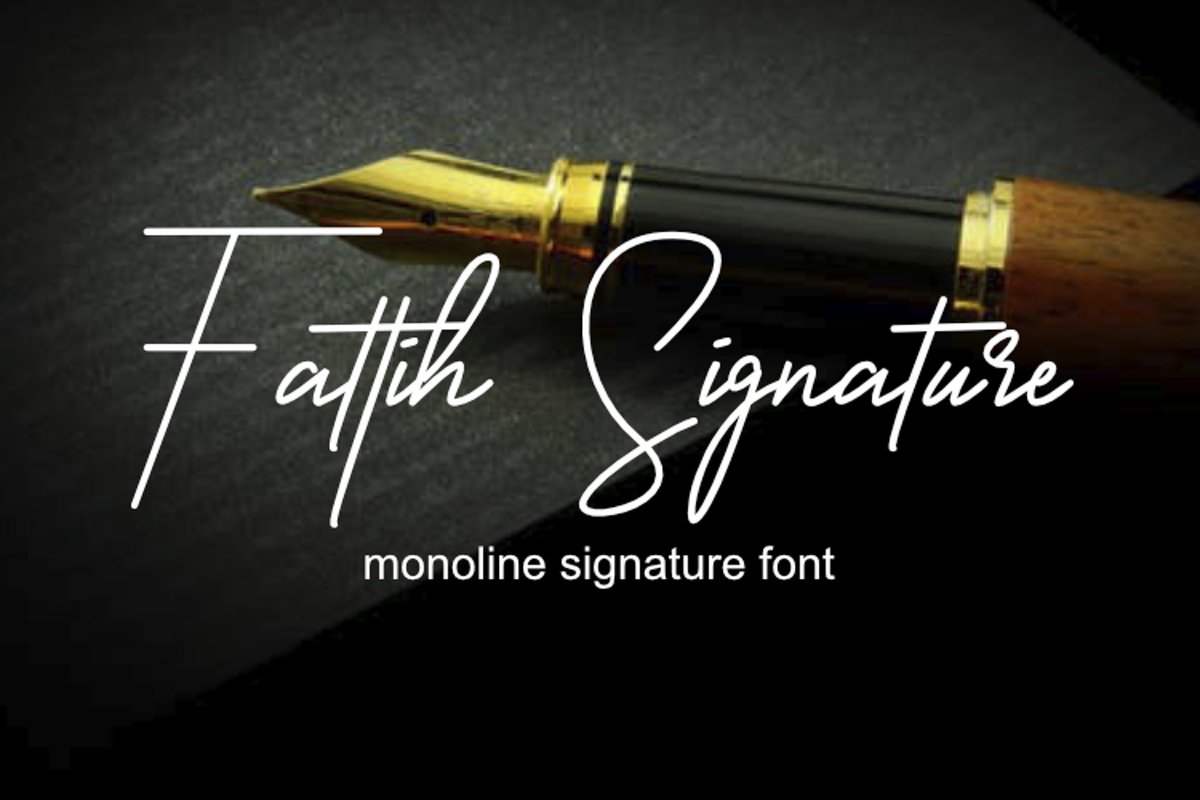
Fattih Signature
Fattih Signature is a signature font. make this font looks natural, classy, natural and perfect for awesome projects.
Fattih Signature is perfect for many different project such as logos & branding, invitation, stationery, wedding designs, social media posts, advertisements, product packaging, product designs, label, photography, watermark, signature, special events or anything.